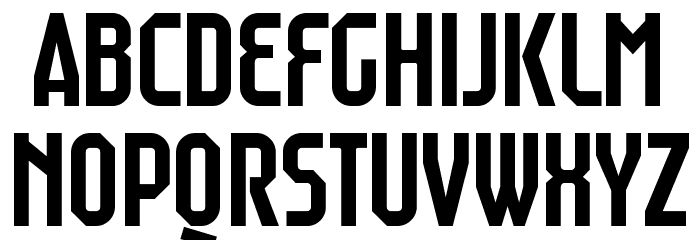
Mainoo Personal Use Font
This font features a bold and geometric design with sharp angles and a strong presence. The uppercase letters are uniform in height, creating a cohesive and structured appearance. The numerals and special characters maintain the same boldness, ensuring consistency across all characters. The font's style is modern and assertive, making it suitable for impactful designs. Its clean lines and angular shapes give it a futuristic feel, while the consistent stroke width adds to its boldness. The font is highly legible, even at smaller sizes, due to its clear and distinct letterforms.
A bold, geometric font with sharp angles and a modern, assertive style.